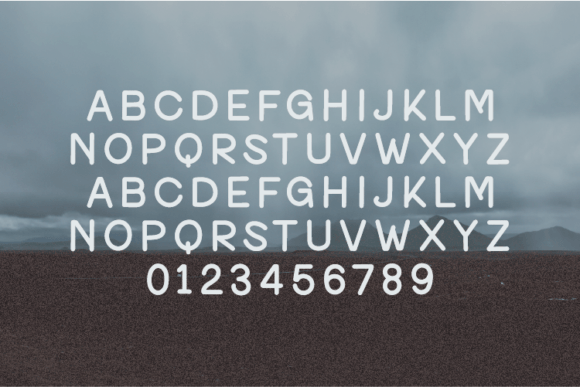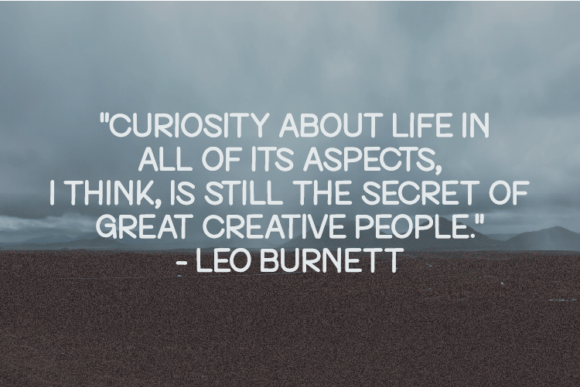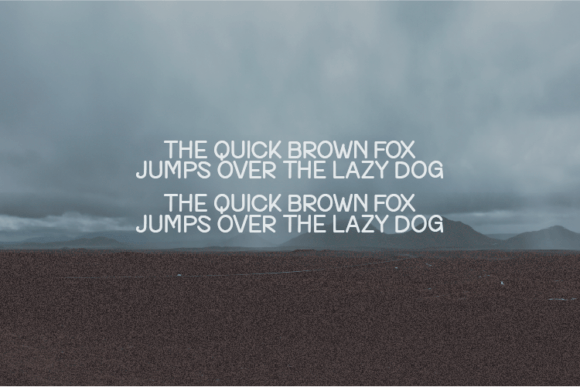
The Perfect Blend of Creativity and Design
Have you ever been in the middle of brainstorming a new project, and suddenly a spark of inspiration hits you? The ideas start flowing, and before you know it, you’re envisioning a beautiful design that brings your concept to life. That’s exactly what happened when the team behind the Floviane Font set out to create a natural sans serif font that would perfectly capture the essence of their ideas.
Floviane Font is more than just a font – it’s a tool designed to help designers express themselves authentically. Its unique features make it perfect for quotes, notes, tees, and any product design that requires a touch of personality. By keeping the original nodes intact, Floviane Font offers a refreshing take on traditional sans serif fonts, making it a valuable addition to any designer’s toolkit.
Floviane Font Key Features
- Unique Characteristics: A modern sans-serif font with a unique blend of geometric and organic shapes, suitable for various design applications, including digital and print media.
Floviane Font Review
Overall, I was quite excited to dive into the Floviane font and see what it has to offer. As a designer, I appreciate the efforts that go into creating a new font, and I was hoping for something truly unique.
- Unique Character Set: The Floviane font boasts a distinct character set that adds a touch of whimsy to any design.
- Highly Legible: The font is remarkably legible, even at smaller font sizes, making it perfect for body text and headings.
- Customization Options: The font offers a range of customization options, allowing designers to tailor it to their specific needs.
- Limited Weight Options: While the font has a decent range of weights, I felt that there were a few gaps in the middle, making it less versatile than I’d like.
- Not Ideal for Display Text: While the font is great for body text, I found it fell short when it came to display text, particularly for headings and titles.
Overall, the Floviane font is a solid addition to any designer’s toolkit, but it’s not without its limitations. If you’re looking for a unique font with high legibility, Floviane might be just what you need. However, if you’re looking for a font that excels at display text, you might want to consider other options.
Tips for Getting the Most Out of Floviane Font
Here are some tips for getting the most out of Floviane Font:
- Experiment with different font sizes and styles to achieve the desired effect.
- Combine Floviane Font with other fonts to create a unique and visually appealing design.
- Use Floviane Font for headings and titles to add a touch of elegance and sophistication.
Common Use Cases for Floviane Font
Floviane Font is ideal for:
- Business cards and marketing